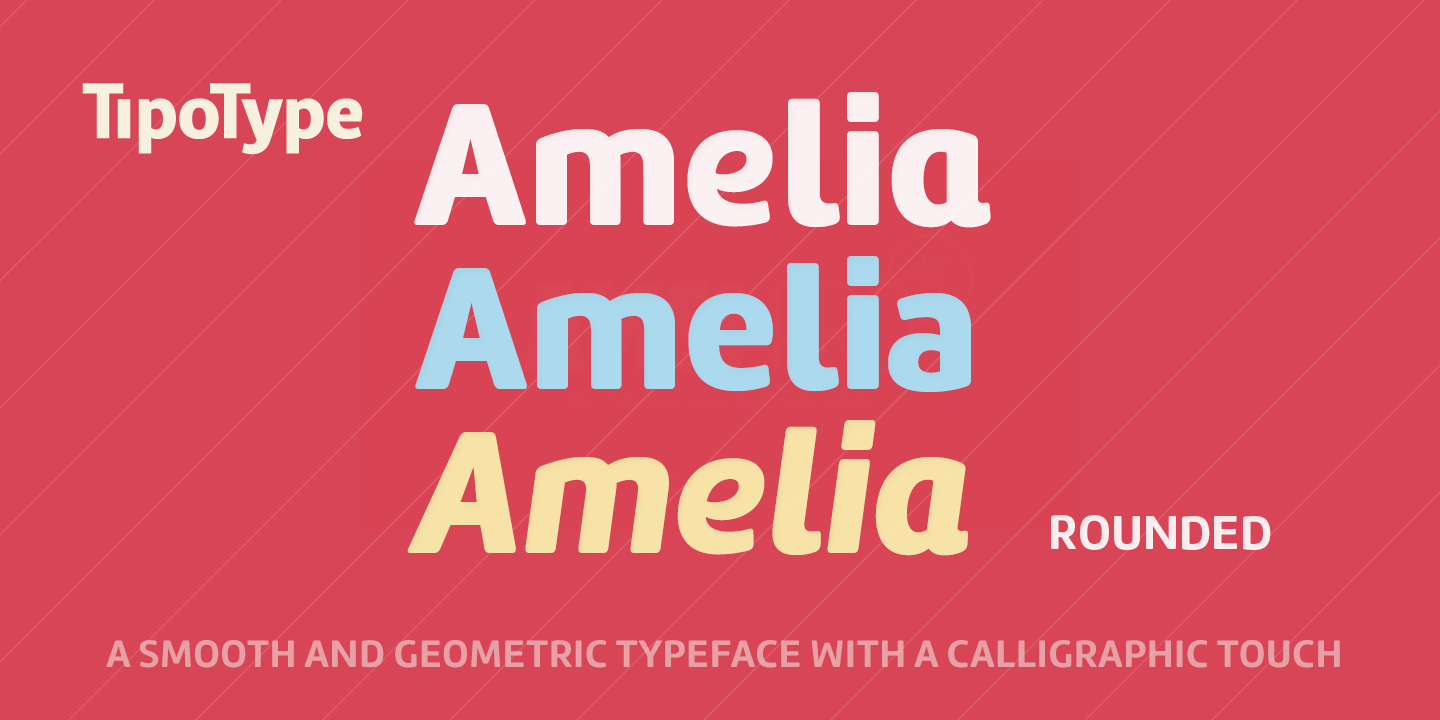
This friendly typeface is perfect for children's brands, family restaurants, daycare centers, toy stores, baby product packaging, educational materials, pediatric clinics, playground signage, kids' clothing brands, maternal health services, nursery decorations, family-friendly apps, and gentle lifestyle brands. The font's soft design makes it ideal for projects that celebrate childhood innocence, family warmth, and the tender moments that create lasting memories with loving care and nurturing support.
Amelia Rounded Font is exciting because it embodies gentle warmth and nurturing care through its soft rounded letterforms and family-inspired character structure. The font's smooth curves and approachable proportions create an atmosphere of safety, comfort, and unconditional love, making it perfect for brands that want to convey tenderness, reliability, and the precious bond between families. Its caring personality ensures instant trust while maintaining excellent readability across various family-oriented applications.
The Amelia Rounded Font family includes multiple nurturing variations: Light Whisper, Regular Hug, Medium Cuddle, Bold Embrace, and Black Cherish weights, each available in standard and playful versions. Special family editions feature heart-shaped alternates, loving ornaments, and gentle flourishes that enhance the font's caring appeal, providing designers with comprehensive tools for creating authentic family-centered communications.
Embrace gentle design warmth with Amelia Rounded Font Free Download – a typeface that represents unconditional love and family togetherness. Whether you're developing children's branding, family service materials, or nurturing lifestyle campaigns, this font delivers the soft comfort and caring presence your projects need while ensuring exceptional performance and heartwarming impact across all family and child-focused applications.